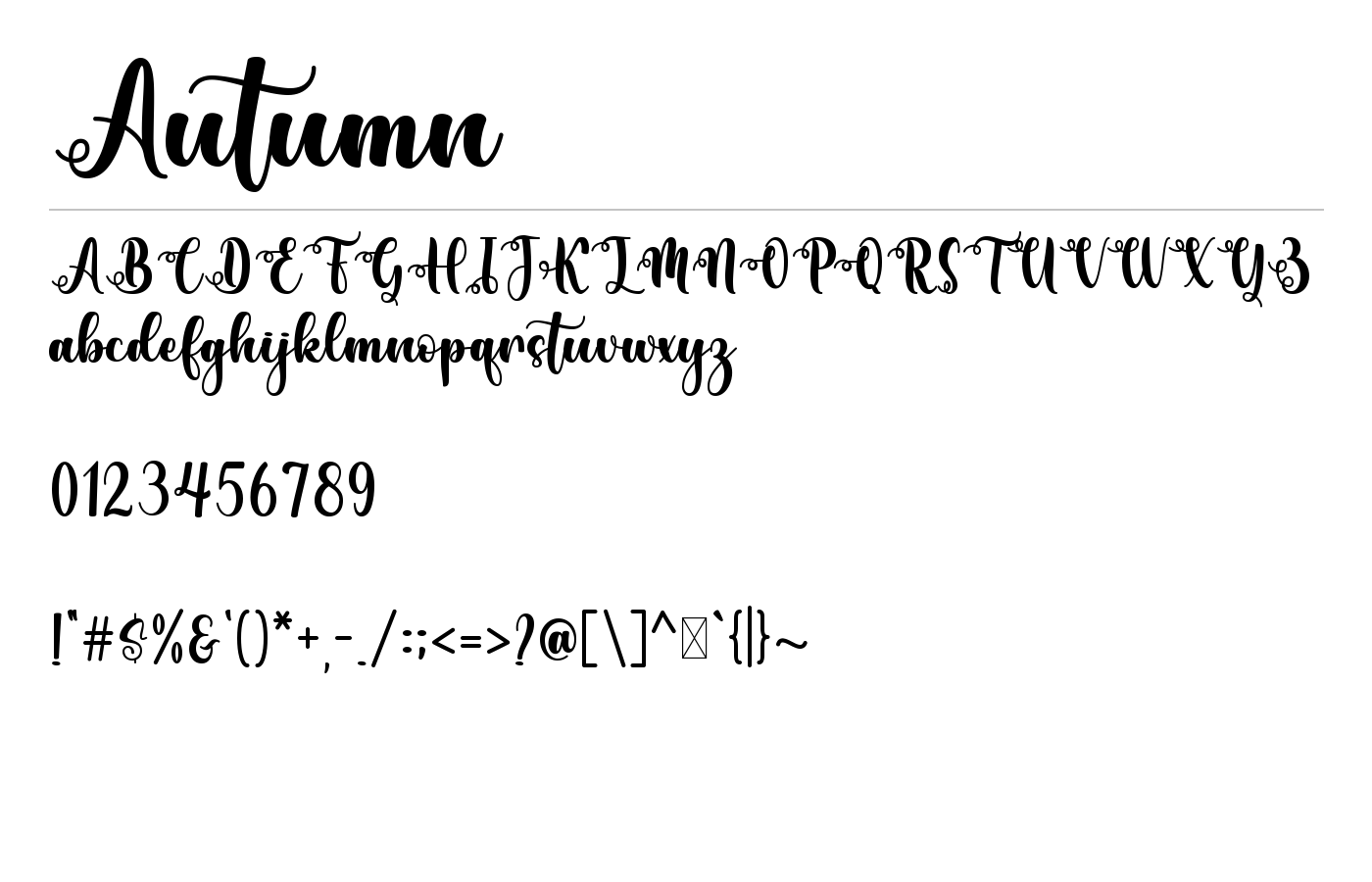
Autumn Font is a charming script typeface with playful, curvy strokes and decorative swirls that give it a lively and elegant feel. Its moderate weight and clear letterforms make it perfect for creative branding, invitations, and headlines where a friendly yet sophisticated touch is desired. This font works well in projects that aim to convey warmth, creativity, and a personal, handcrafted vibe.
Autumn Font
About Autumn Font
| Font family | Autumn Font |
| Designer | Gunawan Soderi |